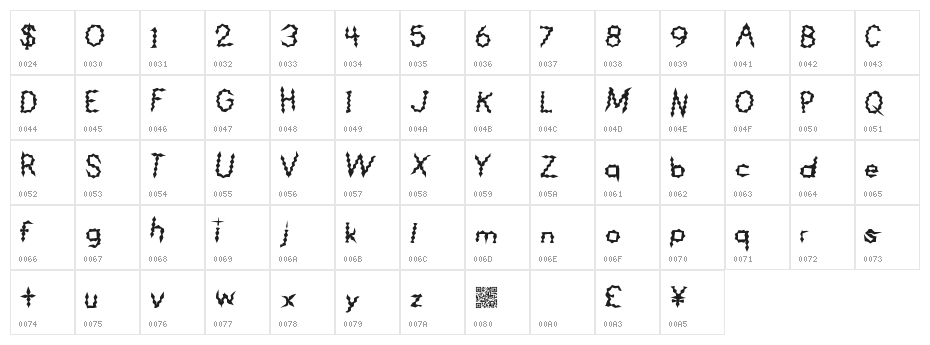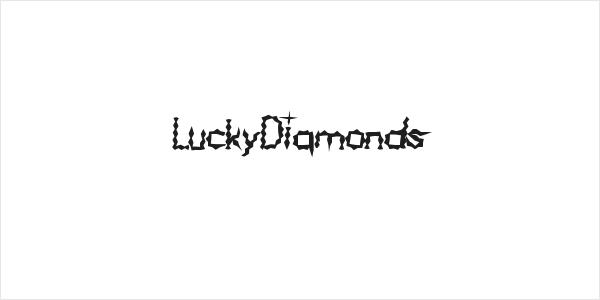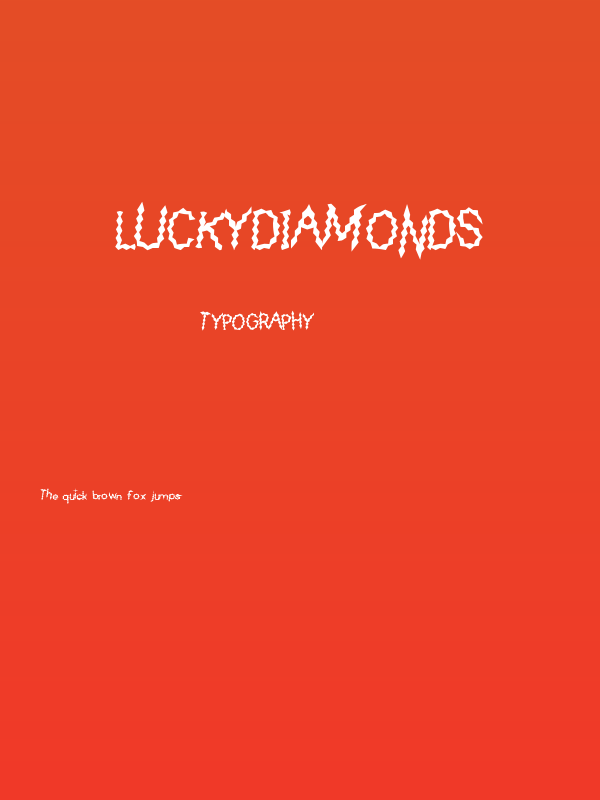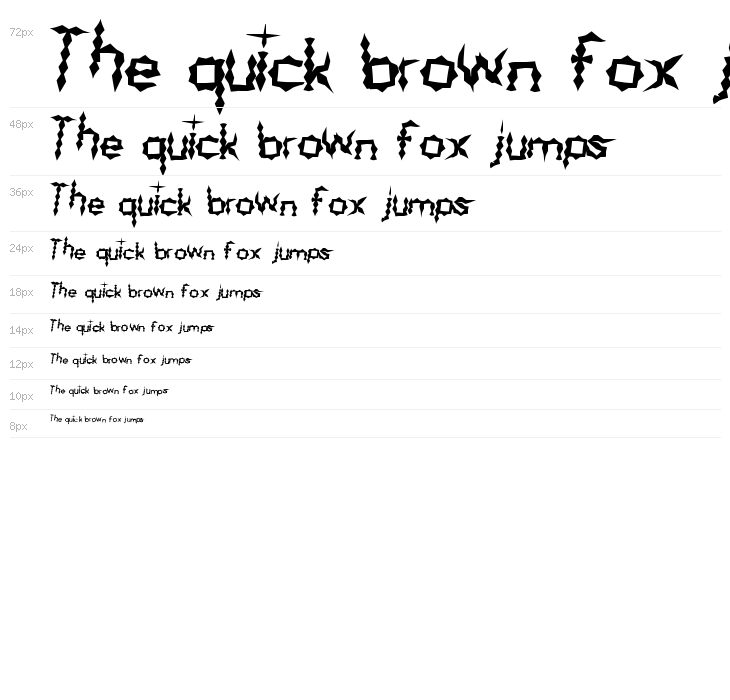
LuckyDiamonds Font
| Stile generale | Modern, Edgy |
| Progetti proposti | Ideal for album covers, posters, branding for edgy or alternative products, and any design needing a bold statement. |